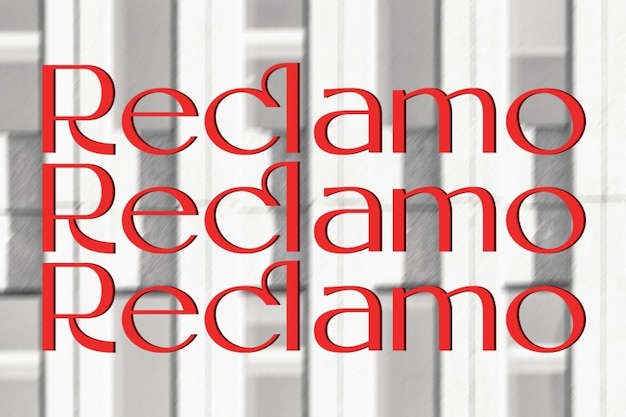
Reclamo
Reclamo Font
Authentype Studio
Reclamo is a font that effortlessly embodies the beauty of simplicity with modern elegance. Its characters are thoughtfully designed, exuding a sense of sophistication and a clean, contemporary aesthetic that adds a touch of refined beauty to your text. Whether you're working on branding, editorial layouts, or any design project that demands a touch of minimalist style, Reclamo gracefully infuses your text with a sense of modern grace. This font captures the essence of modern design, offering an elegant and simple look that's perfect for those who appreciate the power of clean and timeless typography.